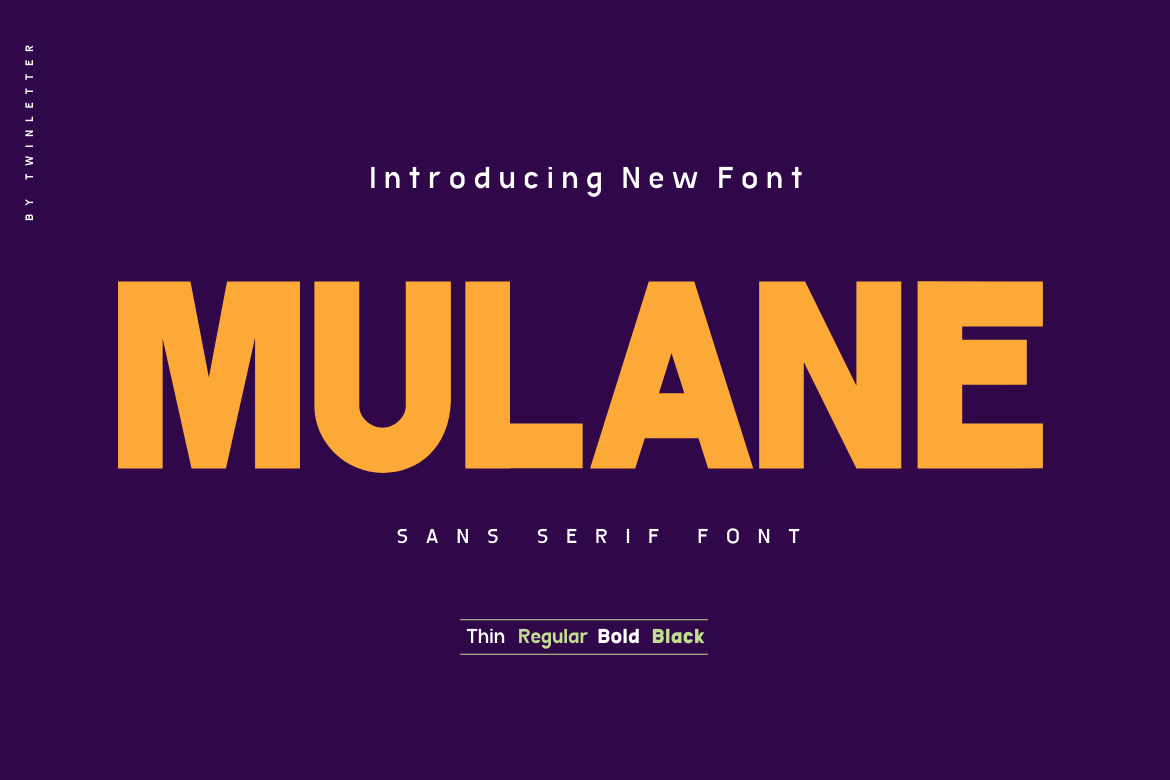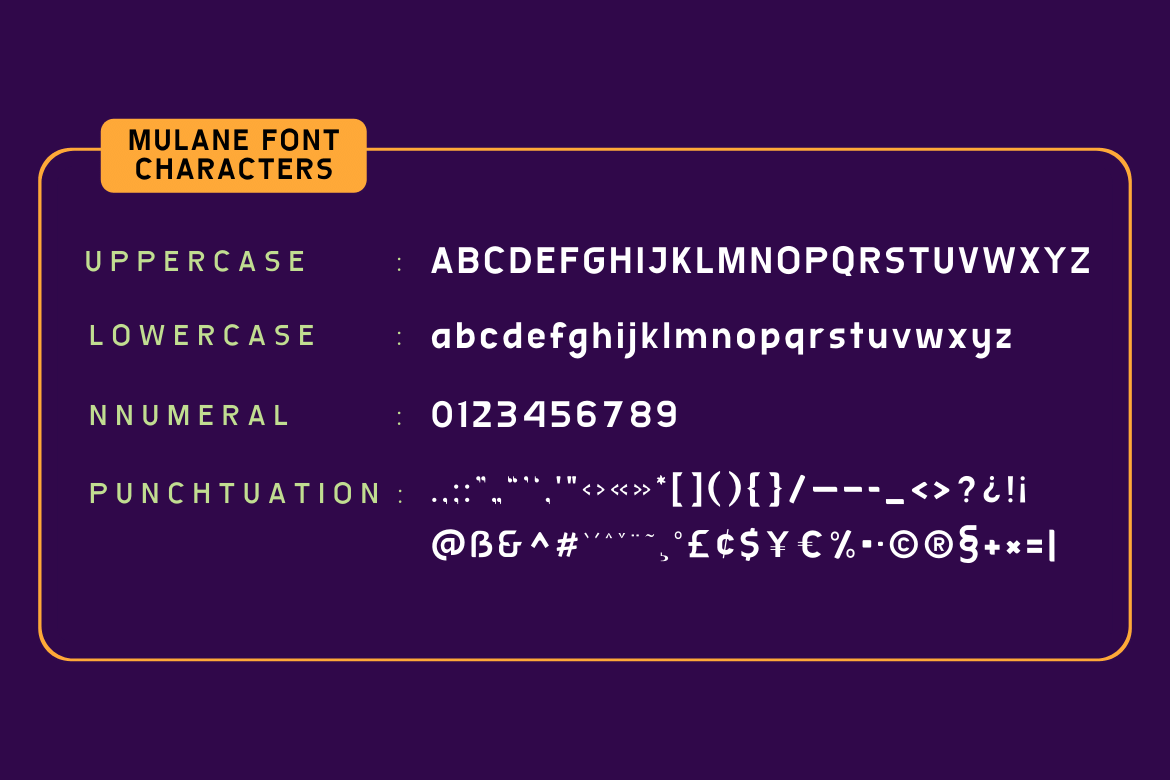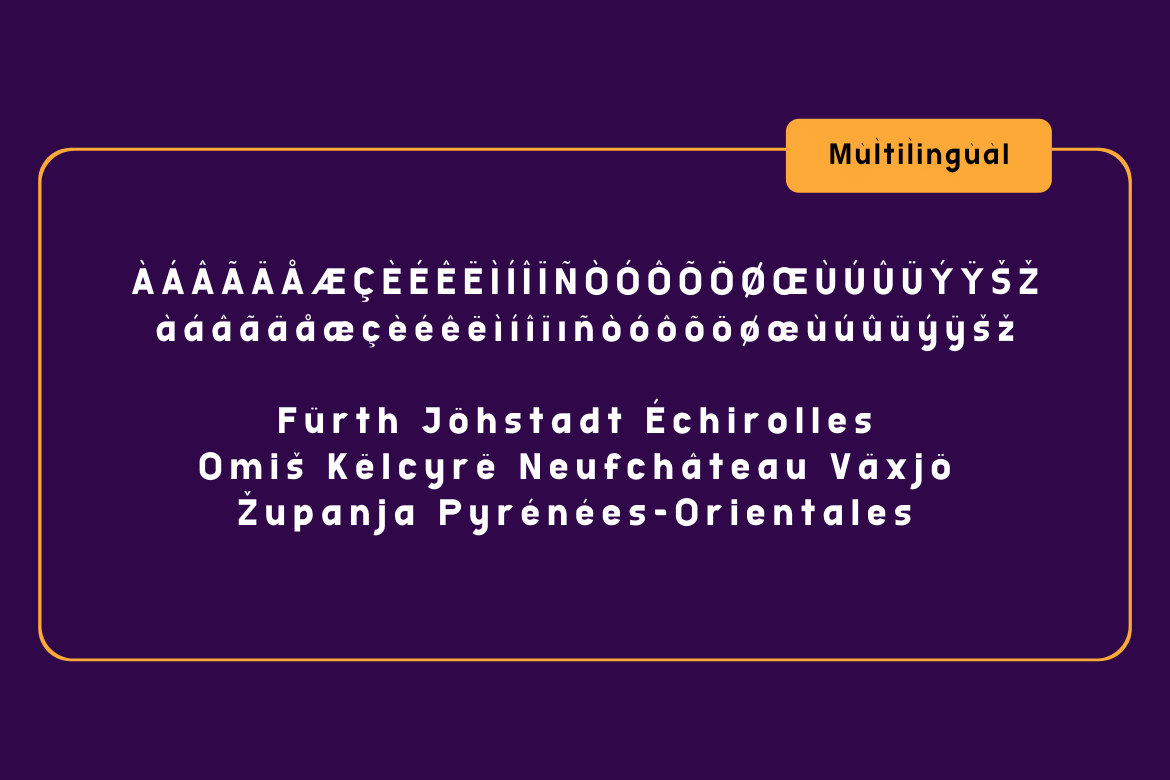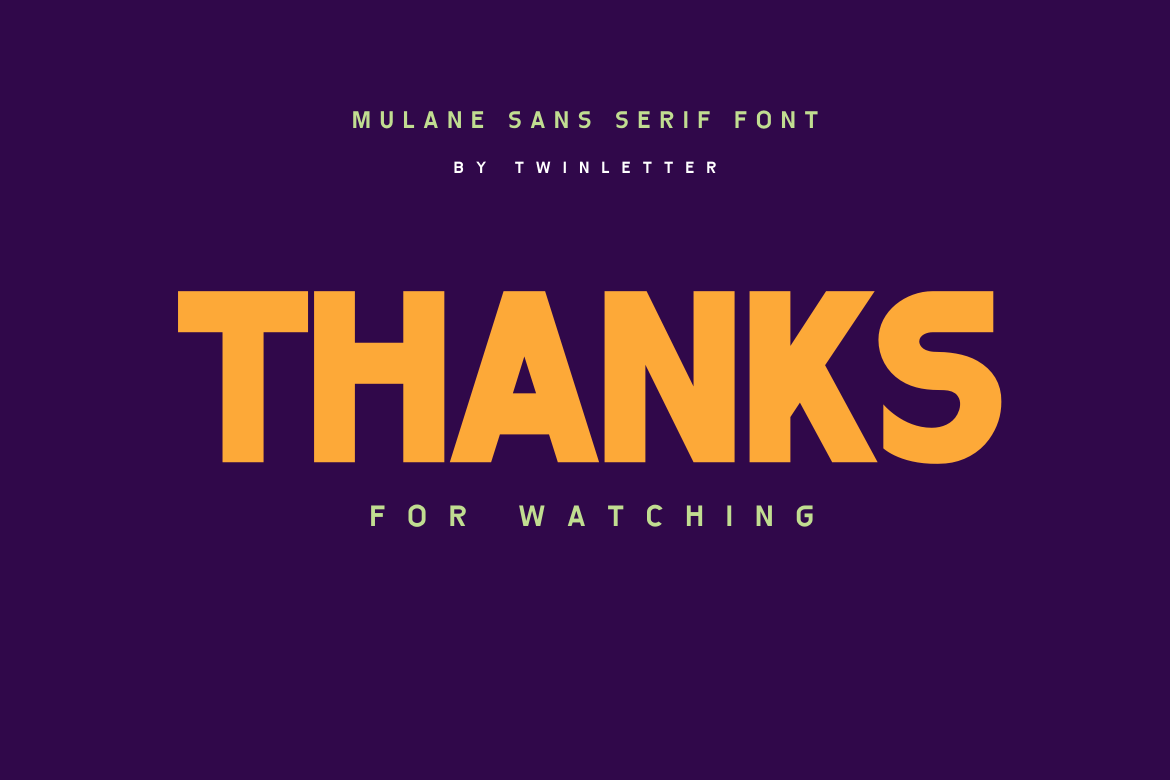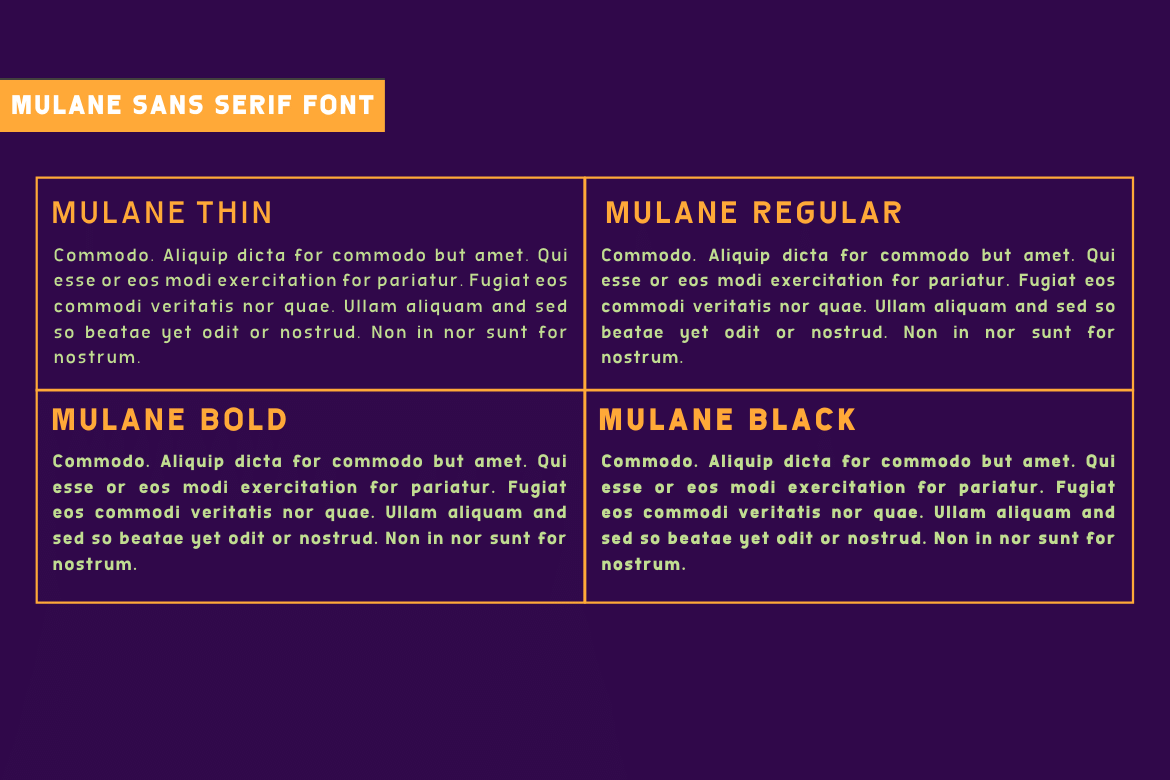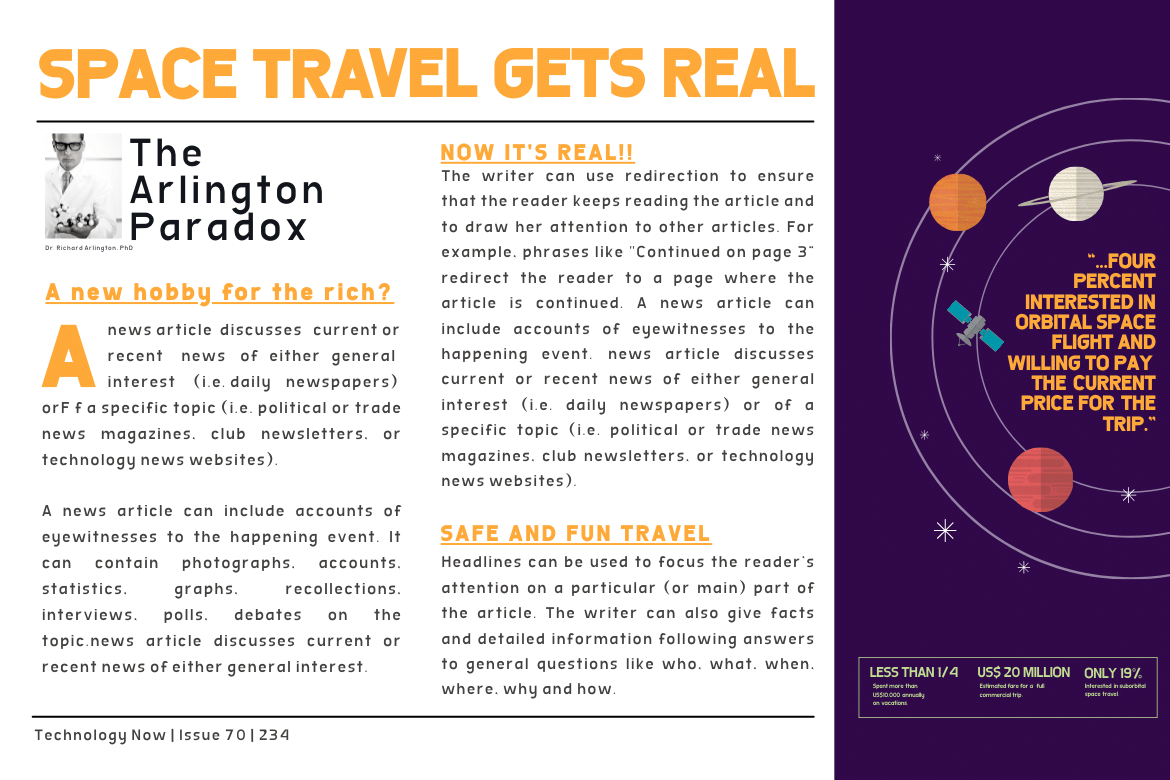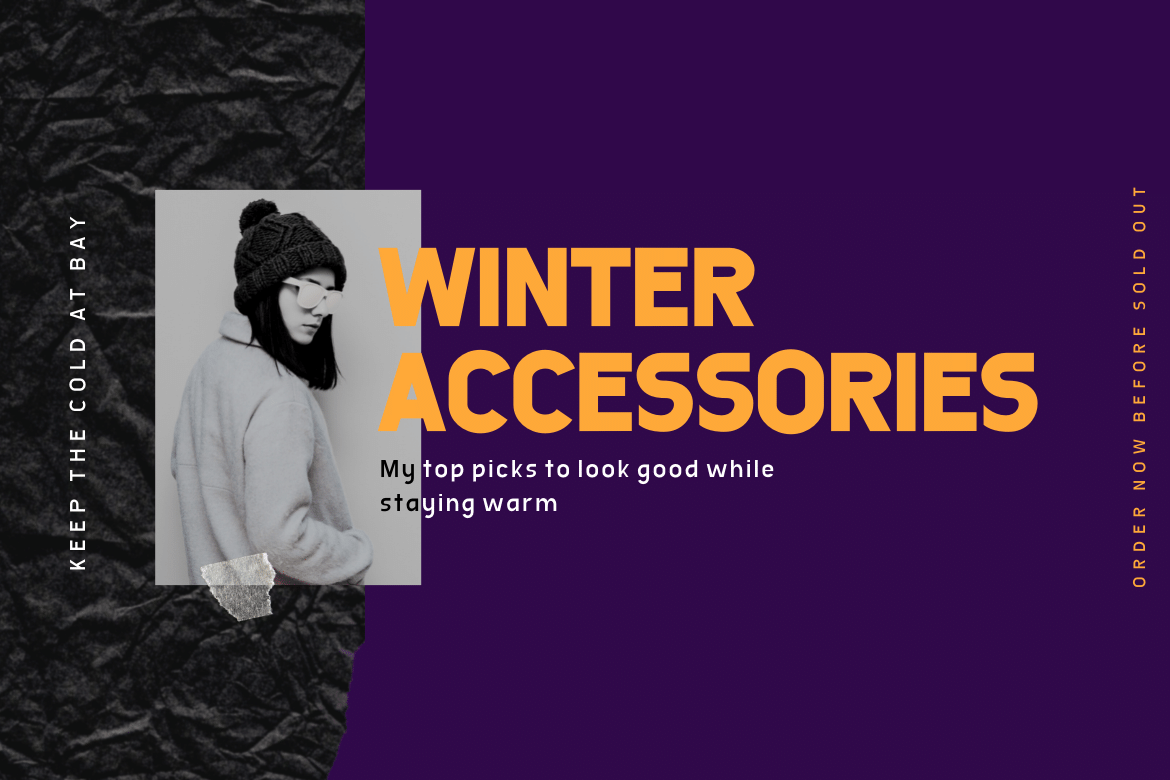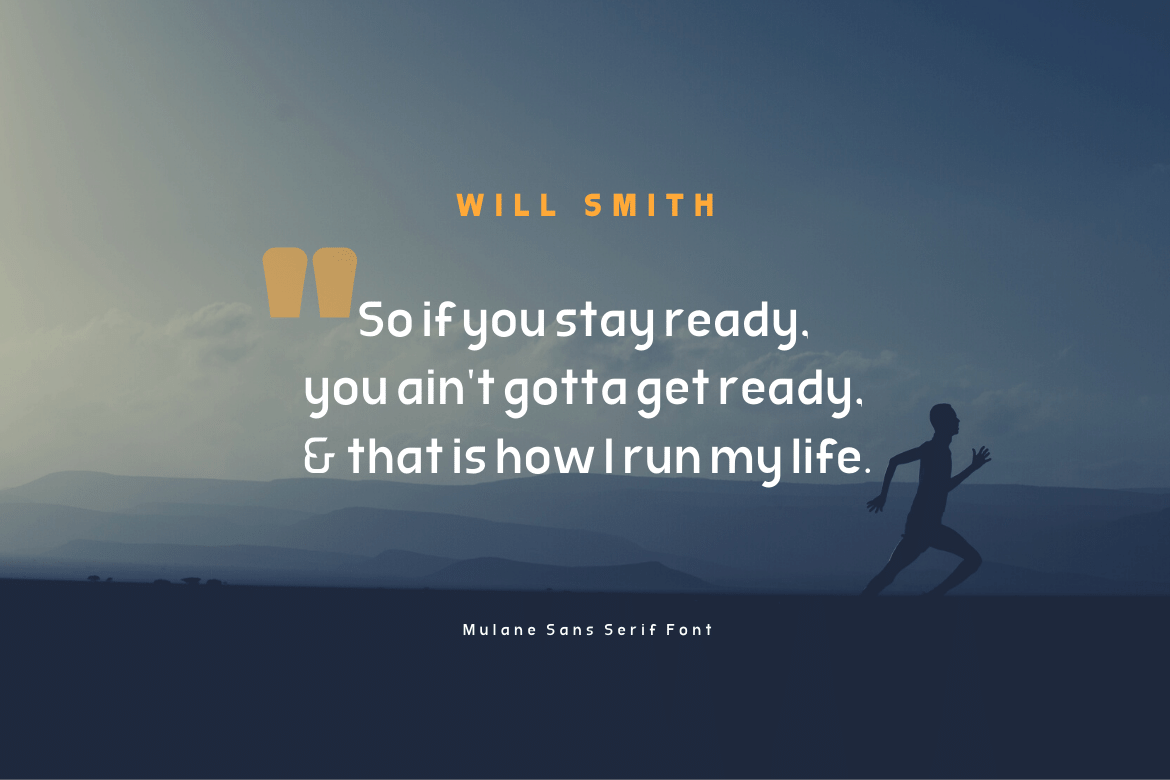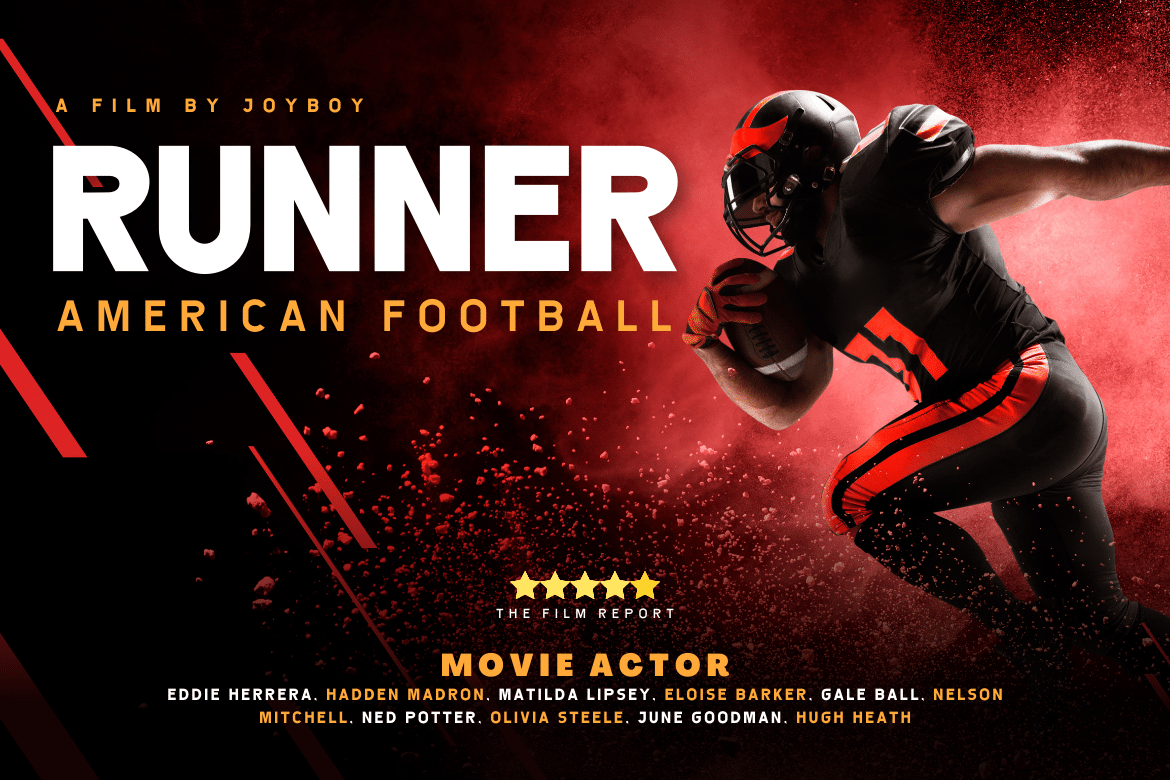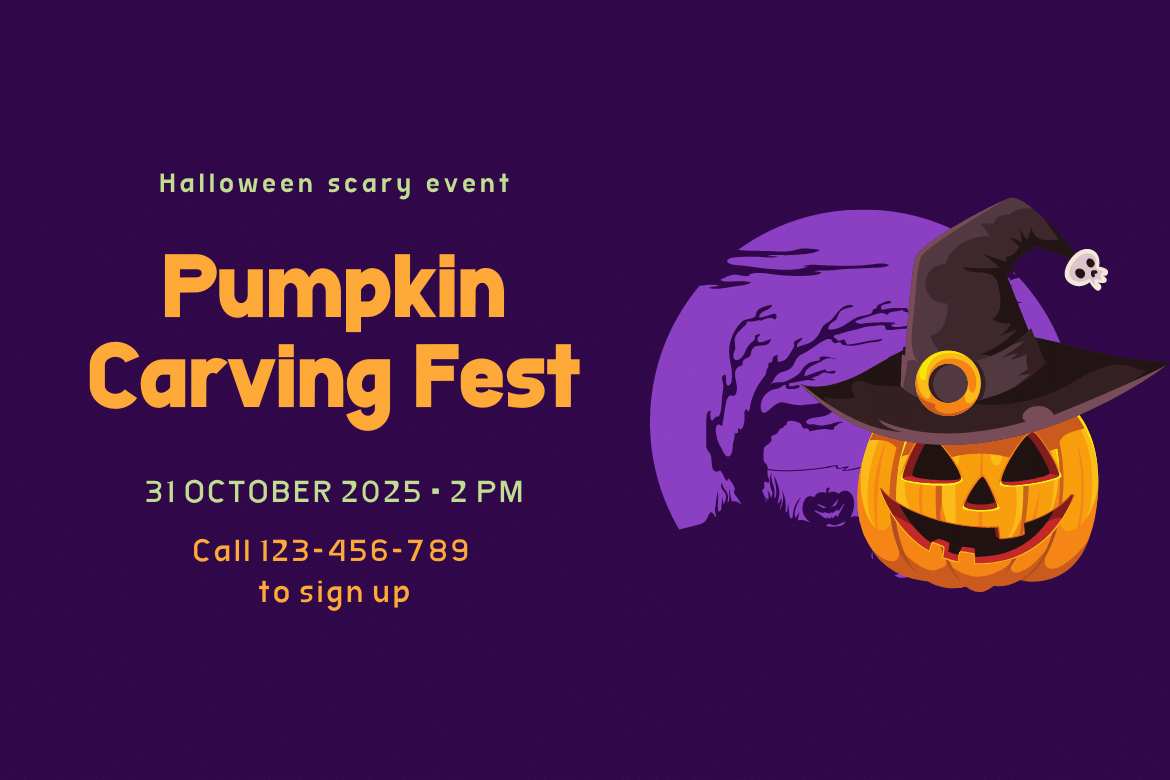
Mulane
Mulane, our newest sanserif typeface, is now available.
Mulane is a versatile font that may be used for a variety of purposes. This typeface is ideal for headlines, product packaging, magazine layouts, invitation cards, advertising, wedding designs, social media posts, and many other branding and design tasks. The fonts’ sleek and appealing appearance is due to their bold and strong letters. Fonts that are robust, bold, and clear, making your work look true and attractive.
• Fonts include multilingual support for; Afrikaans, Albanian, Croatian, Czech, Danish, Dutch, English, Estonian, Finnish, French, German, Hungarian, Italian, Norwegian, Polish, Portuguese, Slovak, Slovenian, Spanish, Swedish